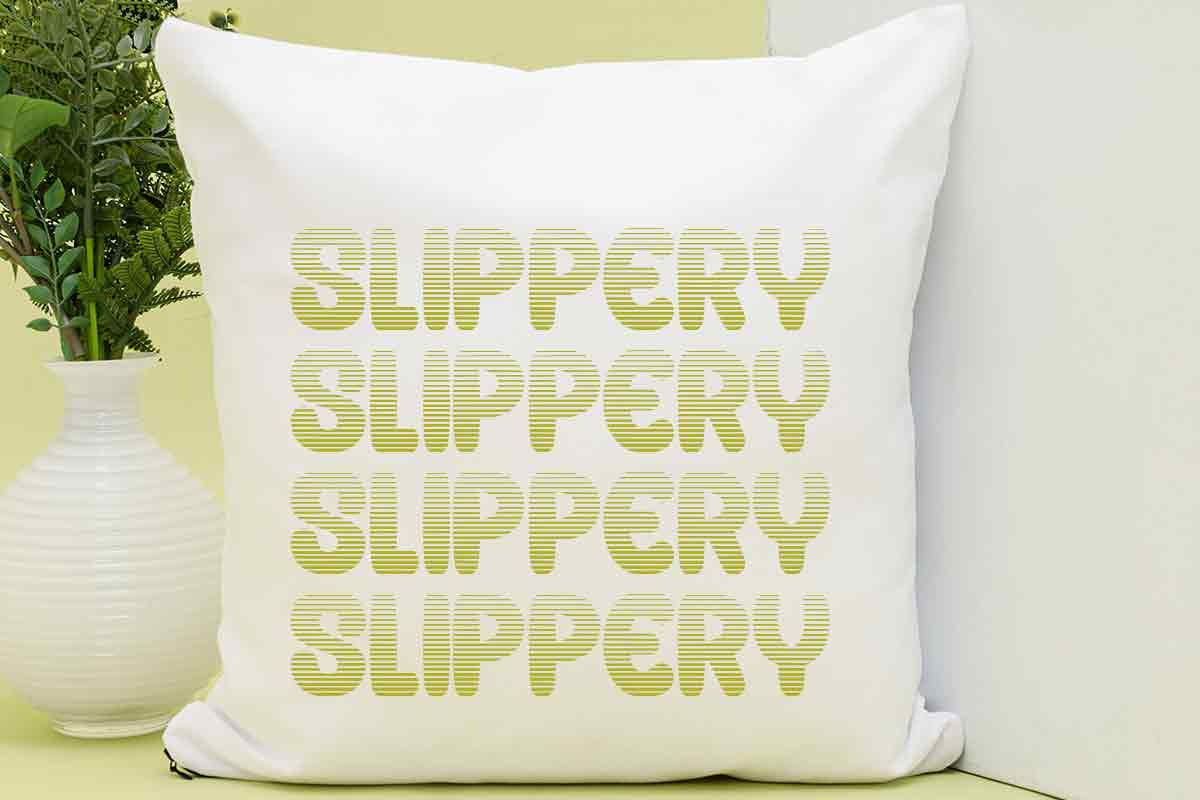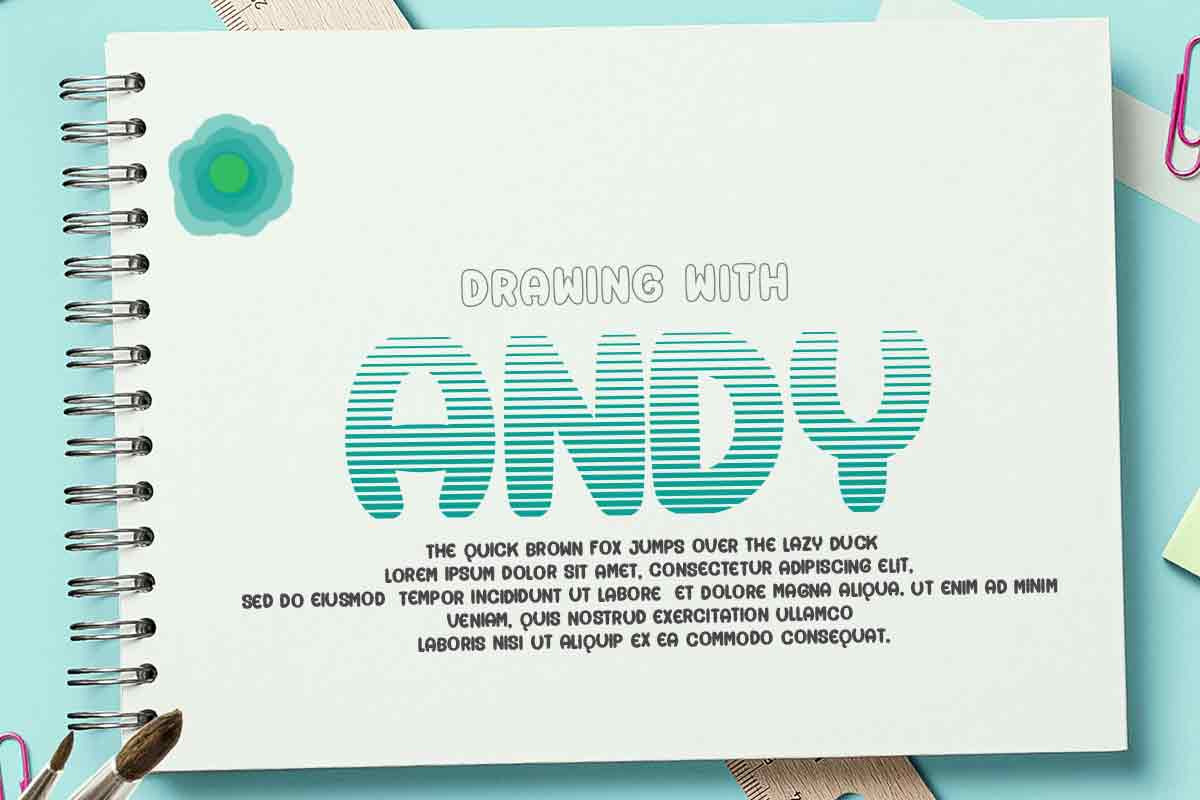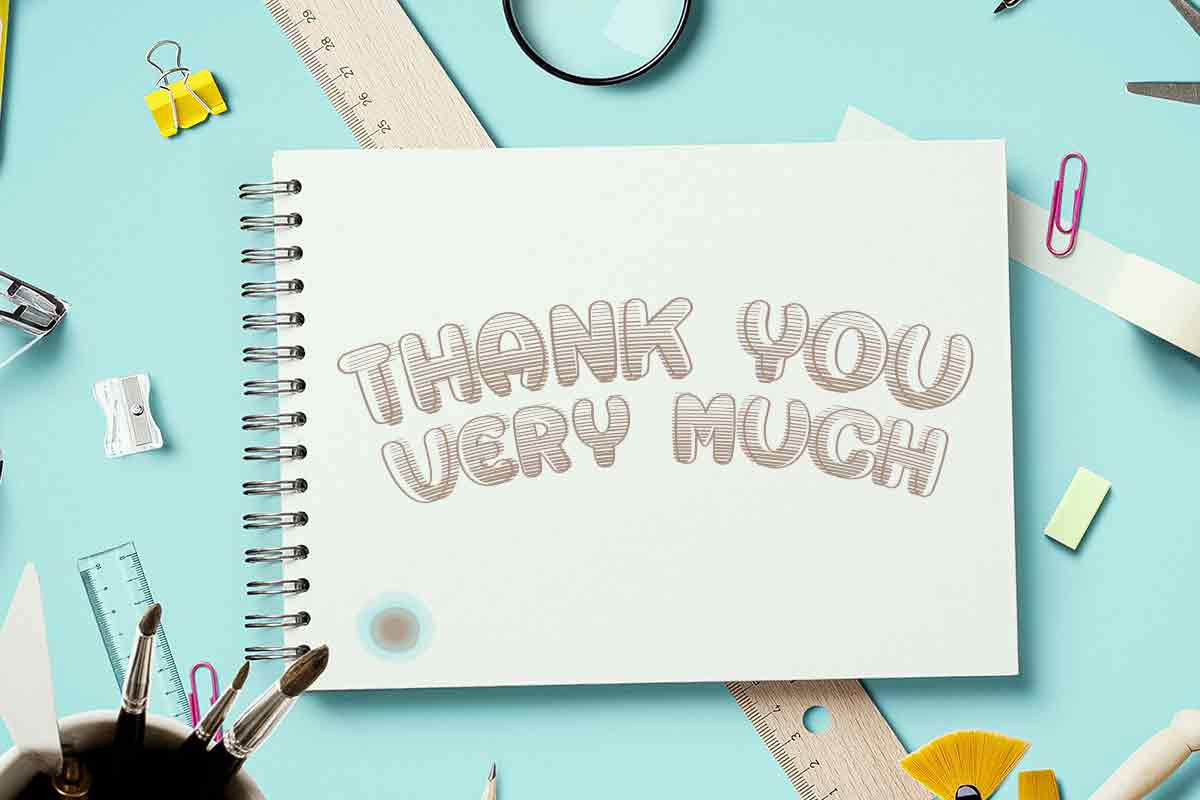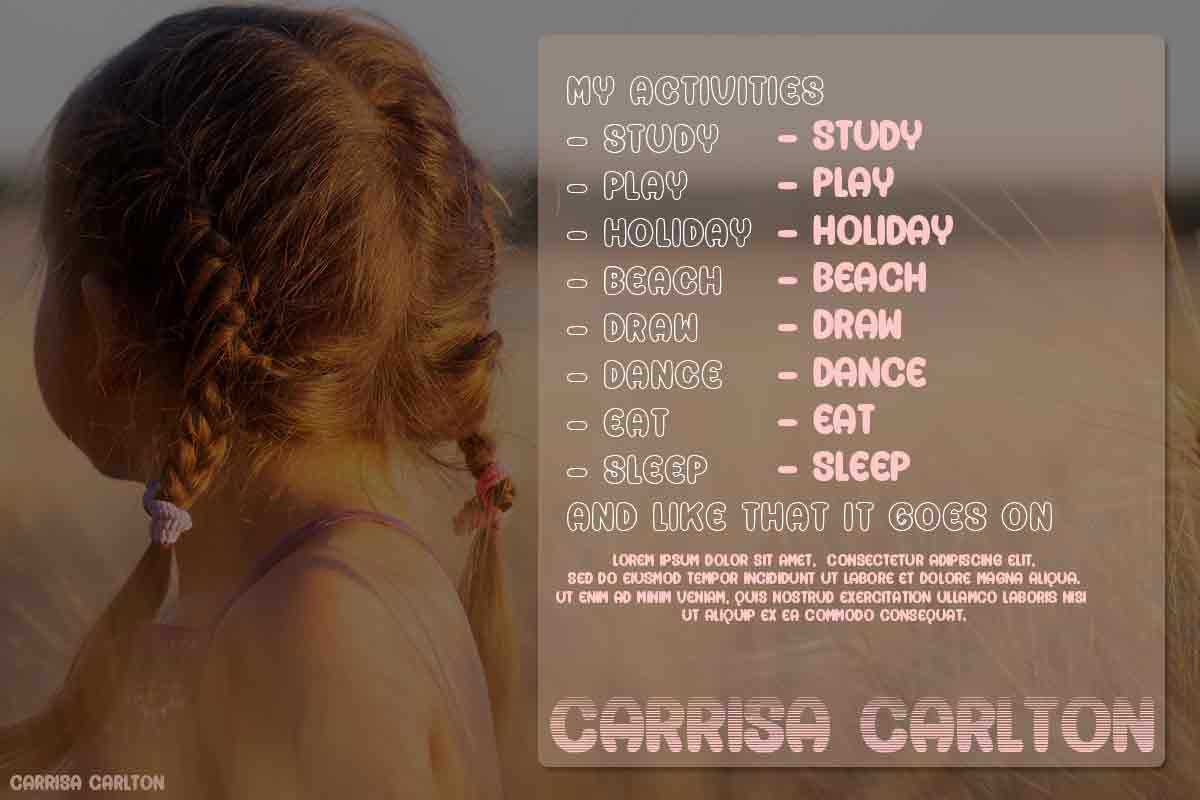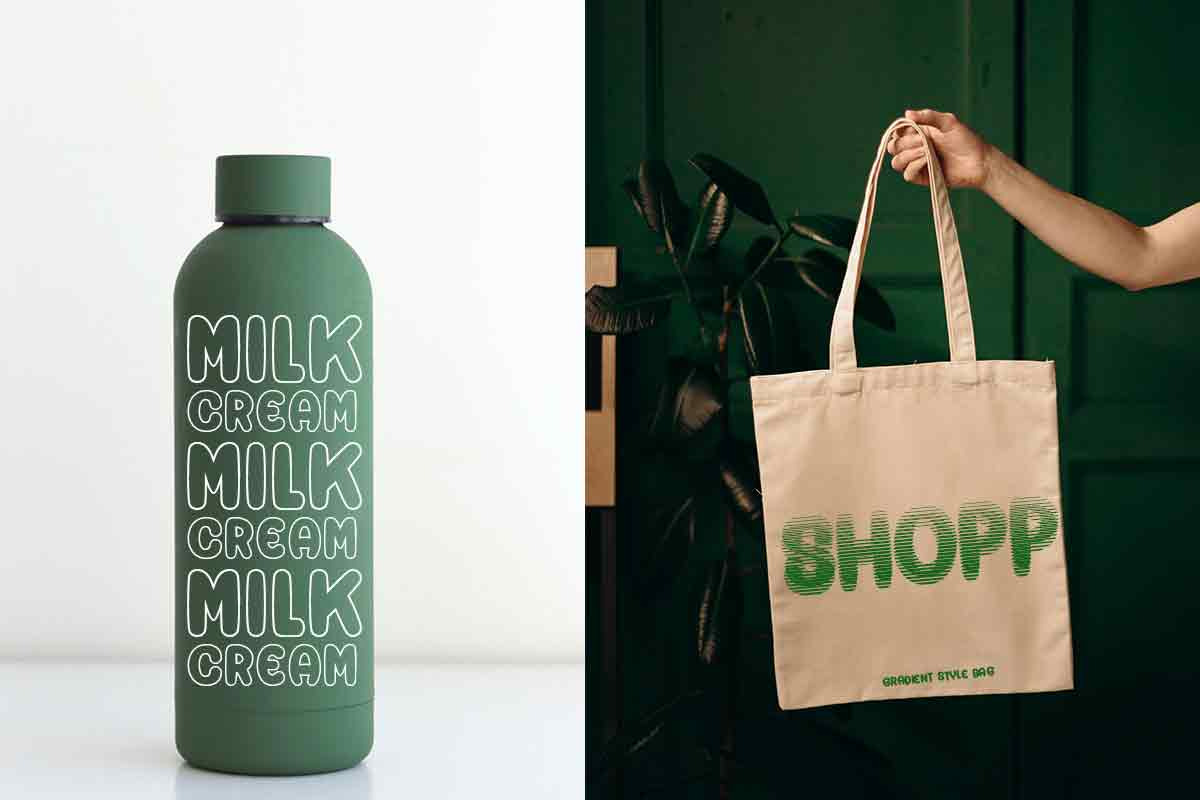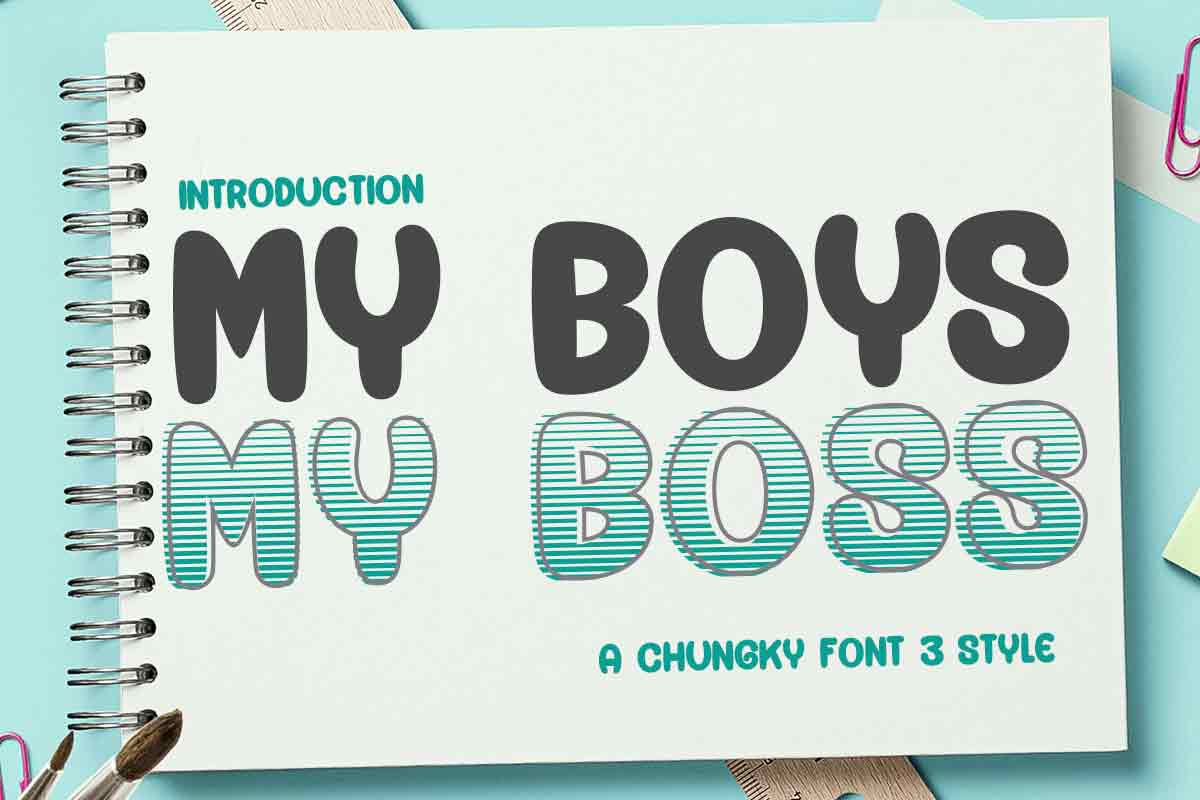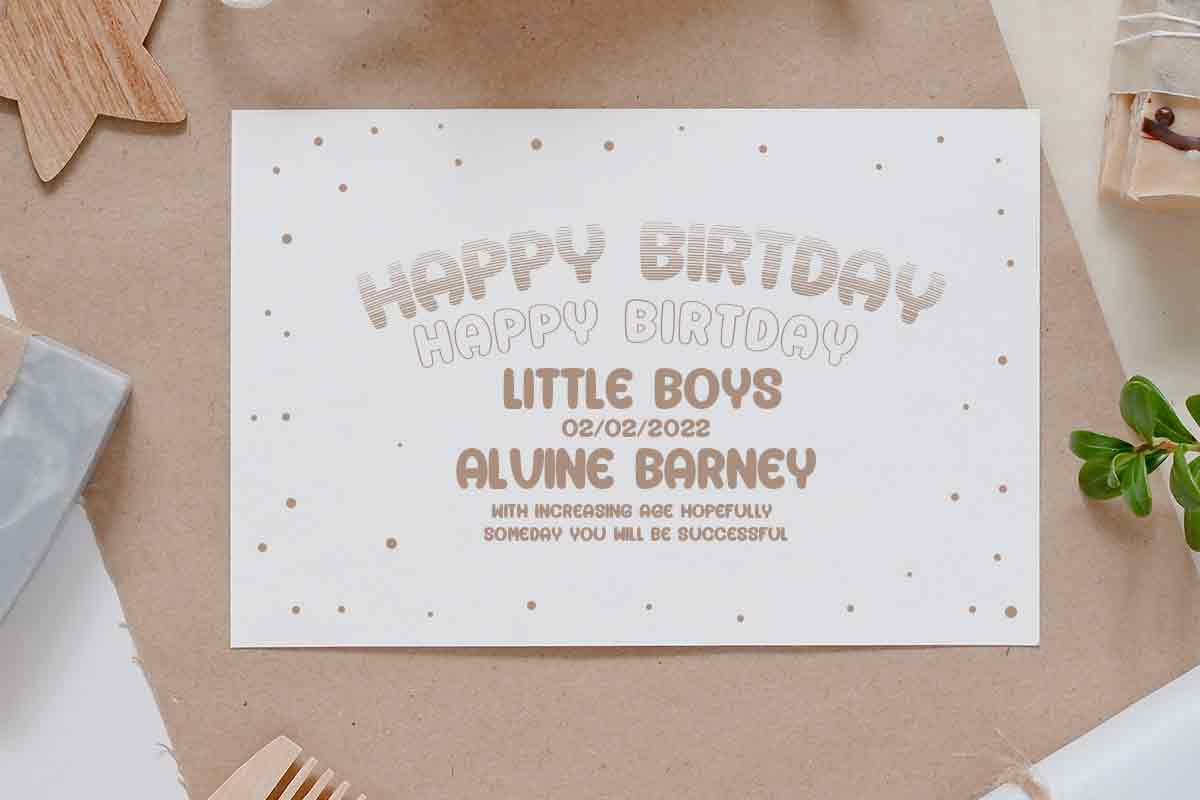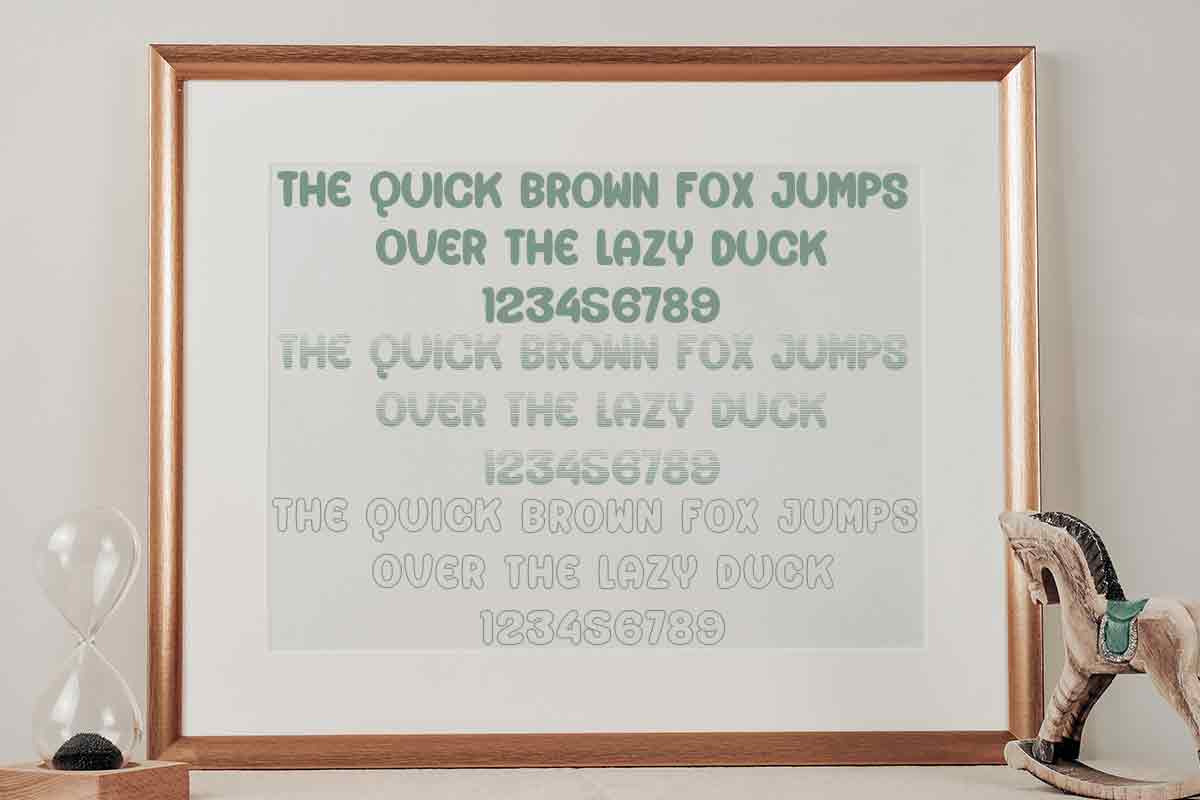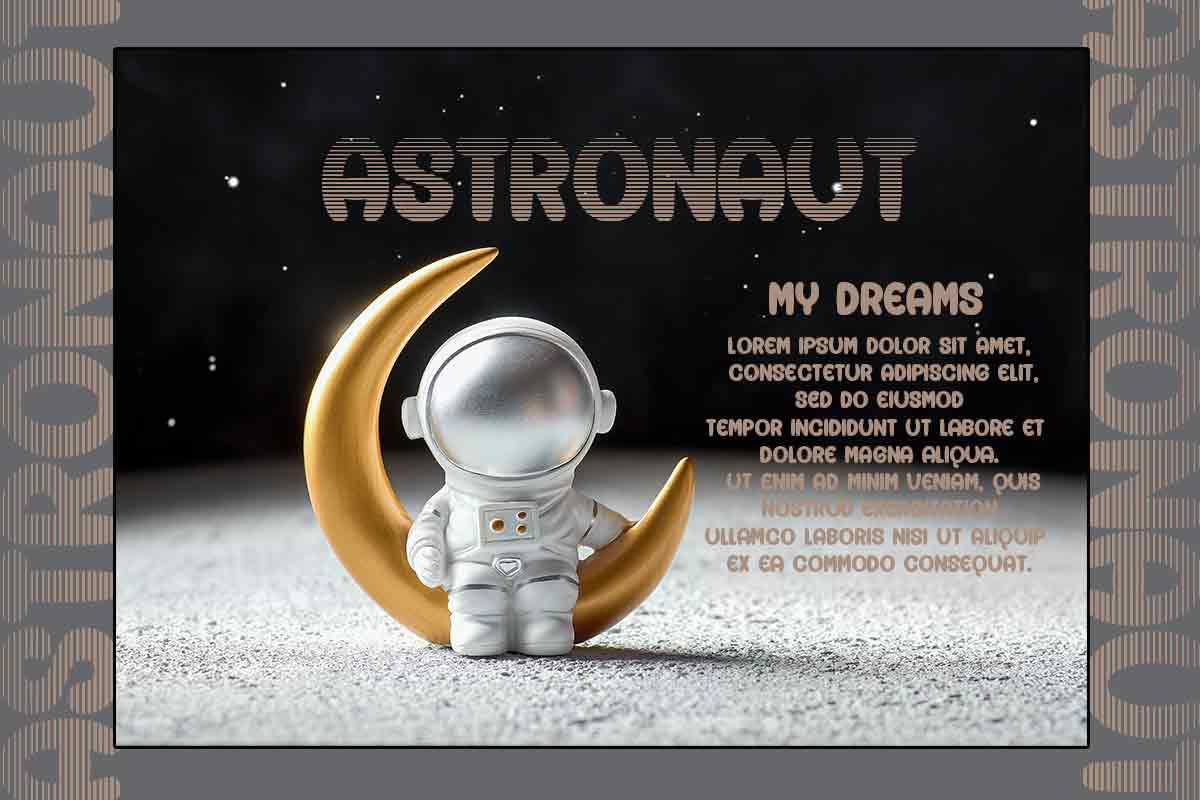
My Boys My Boss
My Boys My Boss is a display font with a cute and bold and cute appearance. There are several characters that you can combine into your design. It is very easy to read and understand because the letters are simple. Try it on comic notes, titles, books, kids' creations, or something else.